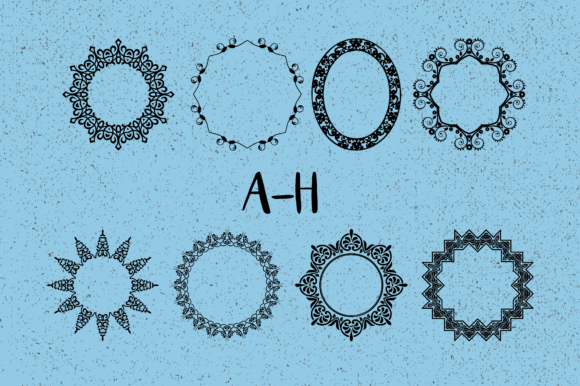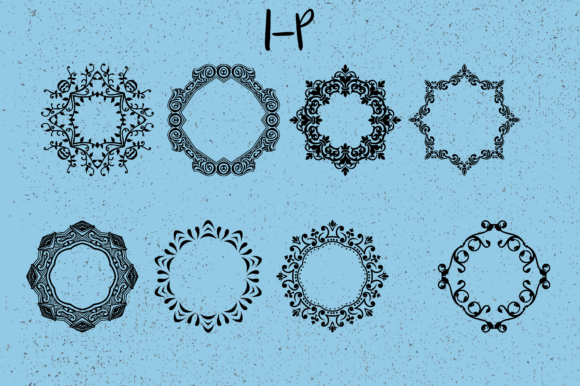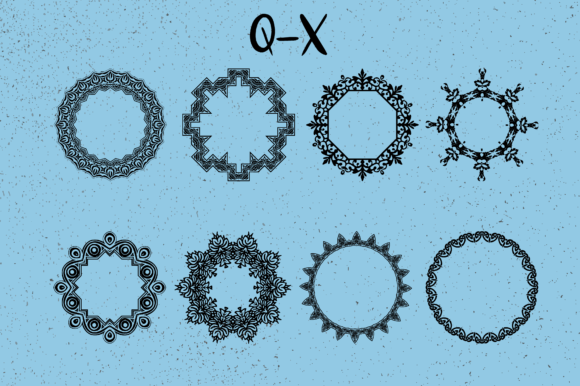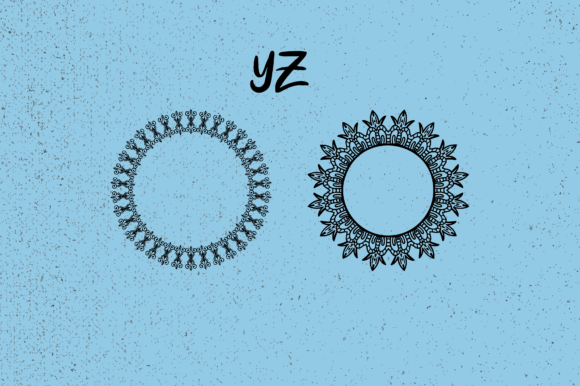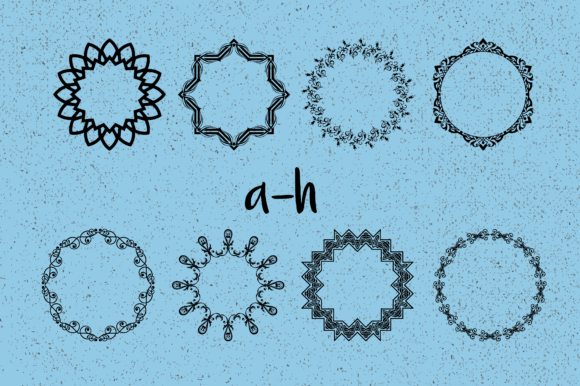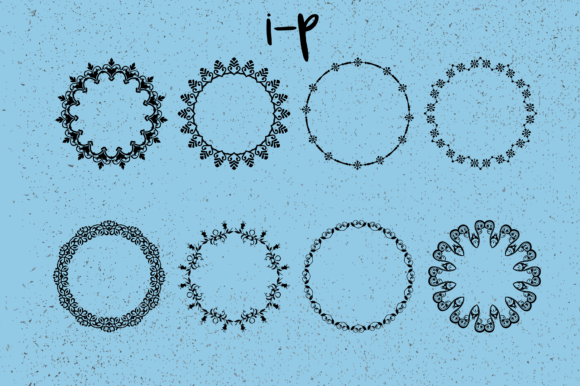
Unlock Your Creative Potential with Frames Creator 3.0 Font
I’ll never forget the time I was working on a branding project for a small business, and my client asked me to create a custom social media graphic with a unique border. I scoured the internet for the perfect font, but nothing seemed quite right. That’s when I stumbled upon Frames Creator 3.0, a game-changing dingbats typeface that has become an essential part of my design toolkit.
What is Frames Creator 3.0?
Frames Creator 3.0 is a highly detailed, unique font designed to help you generate up to 62 unique geometric and floral frames or borders. Its versatility makes it perfect for various applications, including logos, social posts, packaging, and more.
Honest Review
- ✨ Endless creative possibilities: With 62 unique frames, you can experiment with different designs and find the perfect fit for your project.
- 💯 High-quality design: The font’s intricate details and elegant lines ensure that your designs look professional and polished.
While Frames Creator 3.0 is an excellent font, there are a few things to keep in mind:
- ⚠️ Learning curve: With so many options available, it may take some time to get familiar with the font’s features and glyphs.
- 🤔 OpenType features: Some design platforms may not support all of the font’s OpenType features, which could limit its capabilities.
Frames Creator 3.0 was designed with the creative professional in mind. Its intricate details and elegant lines are inspired by traditional art and design. The font’s creator aimed to provide a versatile tool that could be used in a variety of contexts, from graphic design to crafting.
| What type of designs can I create with Frames Creator 3.0? | You can create a wide range of designs, including logos, social media graphics, packaging, and more. |
| How many frames and borders can I create with Frames Creator 3.0? | Frames Creator 3.0 includes 62 unique frames and borders, giving you plenty of creative options. |